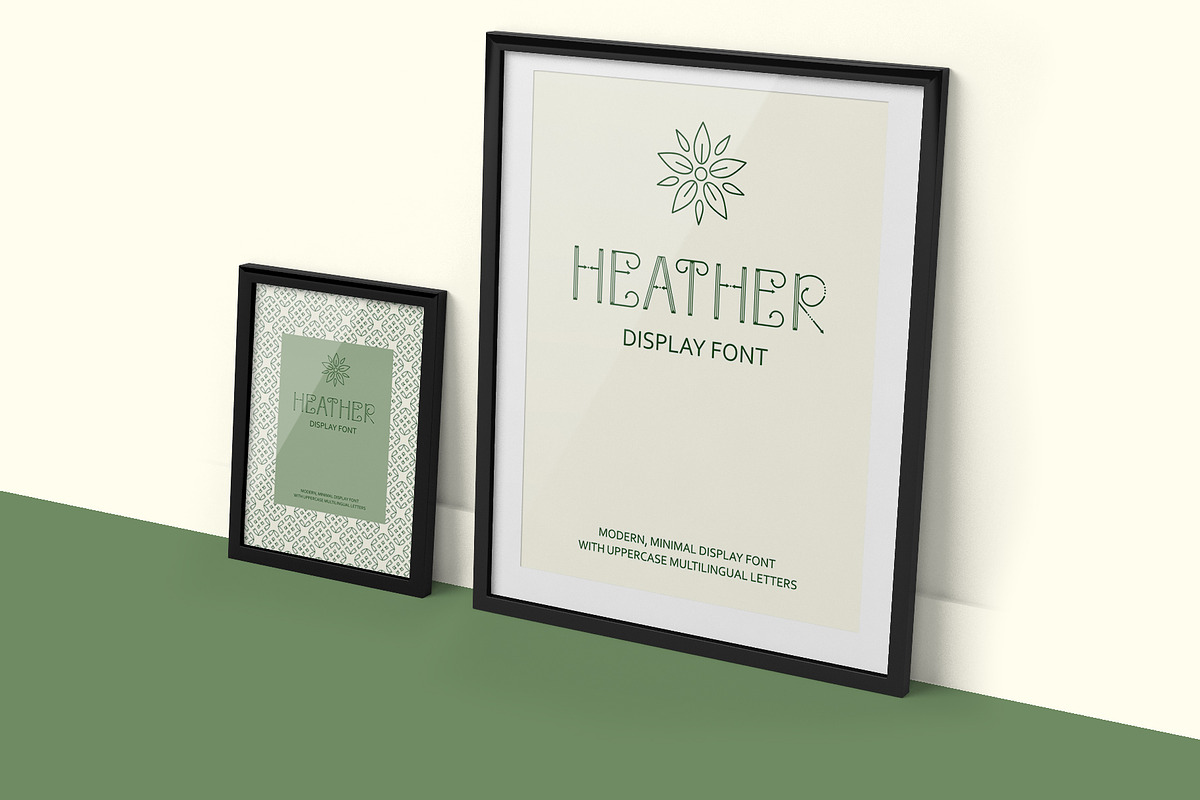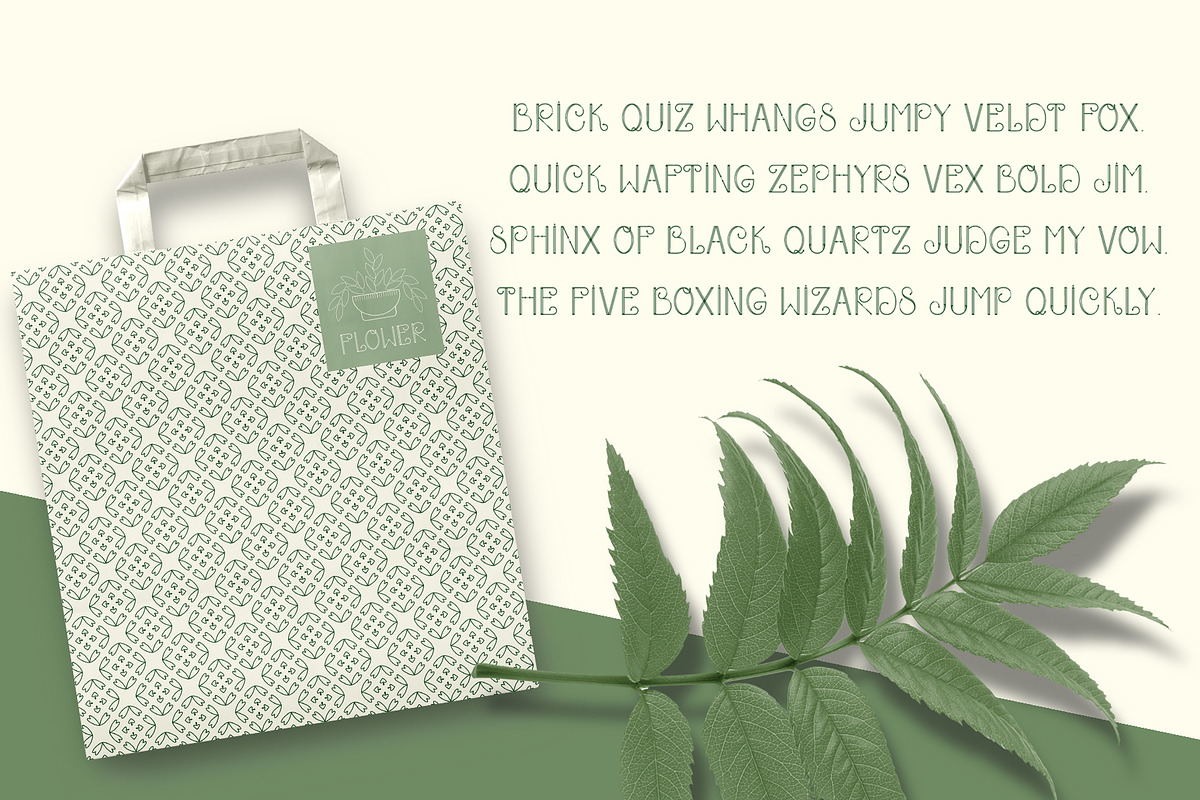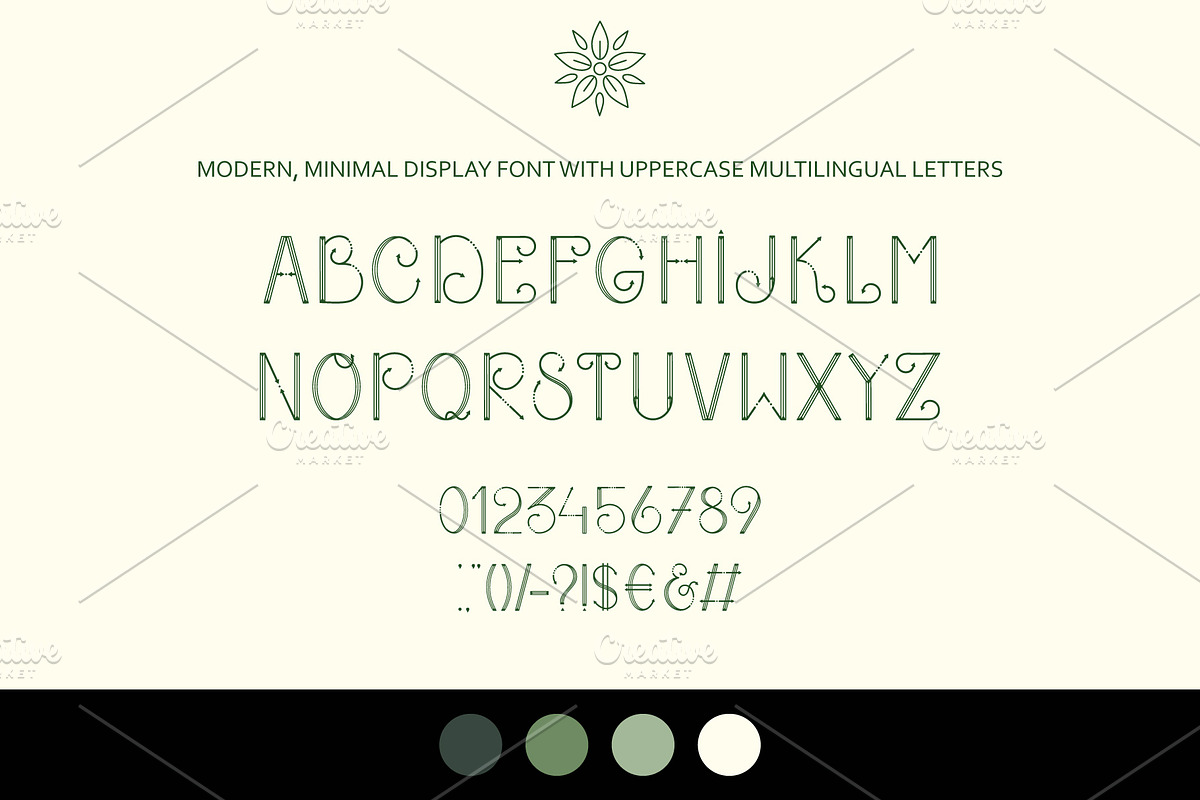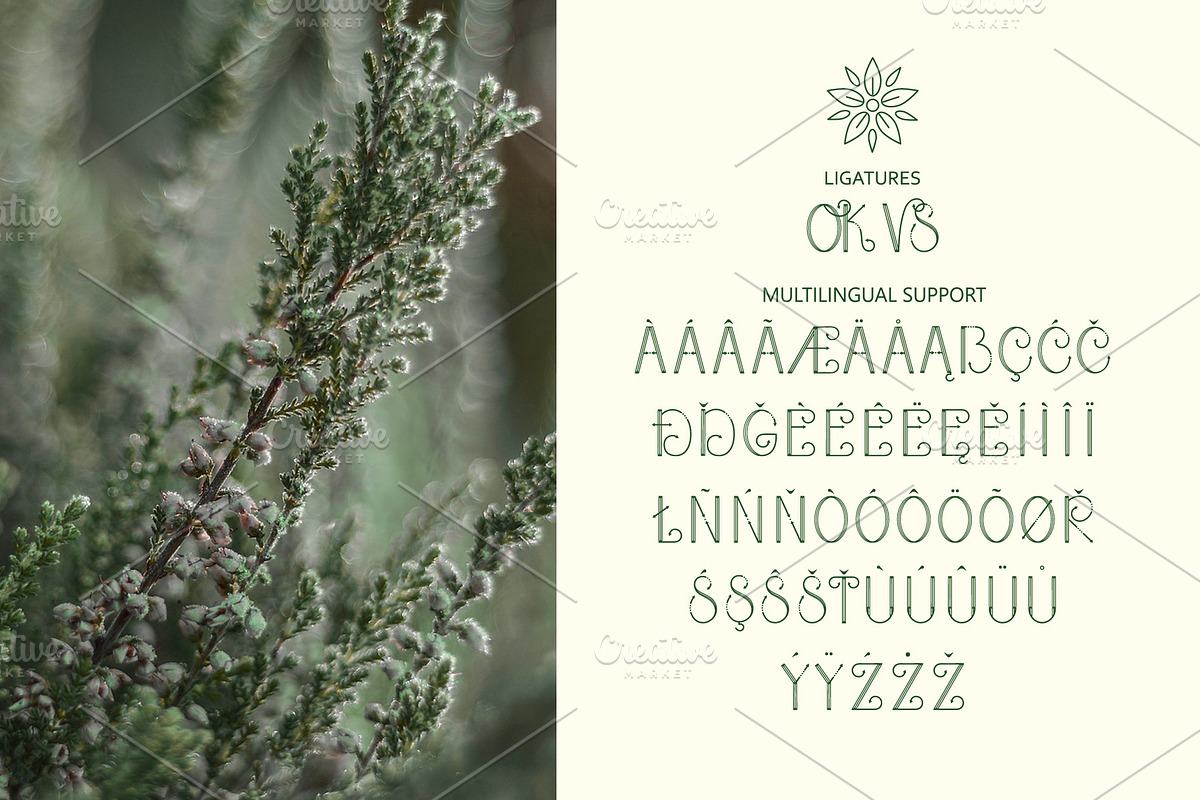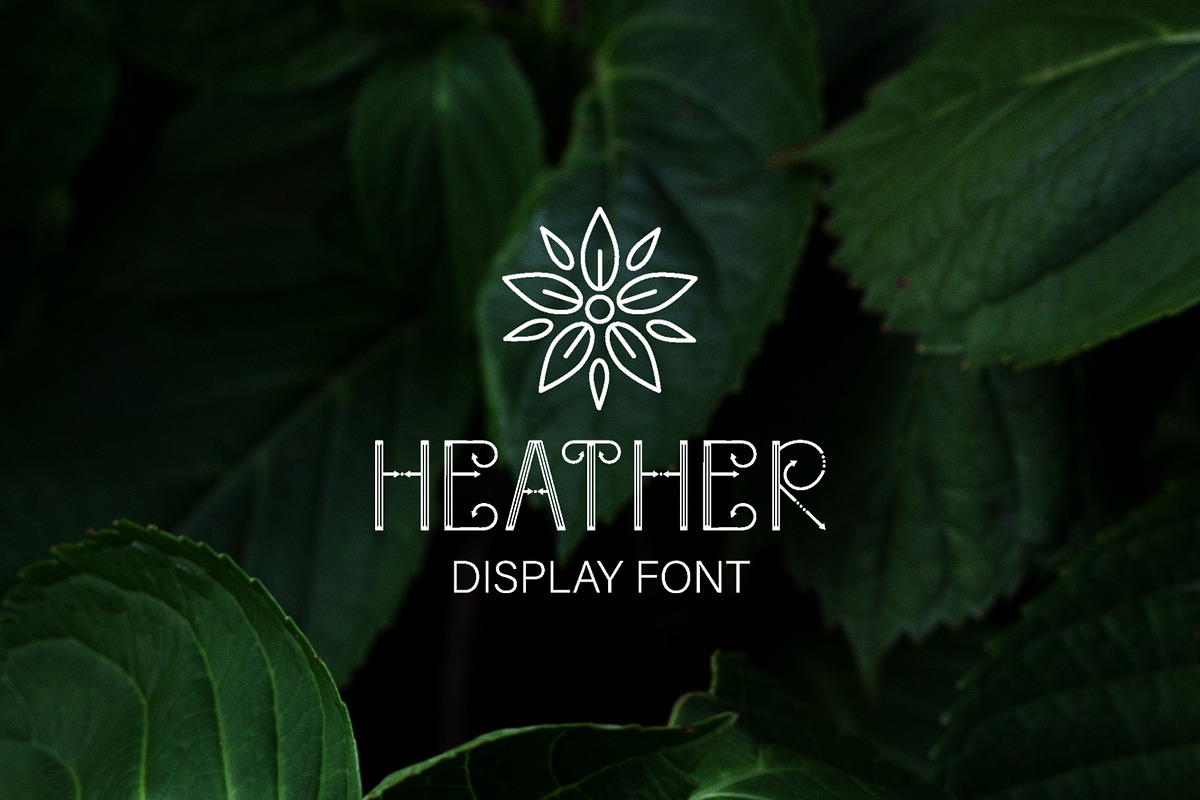
Heather - uppercase font
Heather is an uppercase marker font with elegant lines, modern and stylish. The font is ideal for posters design, invitations, headlines, cards, scrapbooking, gift wrap, packaging and more. Heather has extensive language support is included - just type a message in the text box below and see if all characters you’ll need are there. You will get this font in OTF and TTF versions. If you have any questions you can email yulikk337@yandex.ru.
- Heather is an uppercase marker font with elegant lines, modern and stylish.